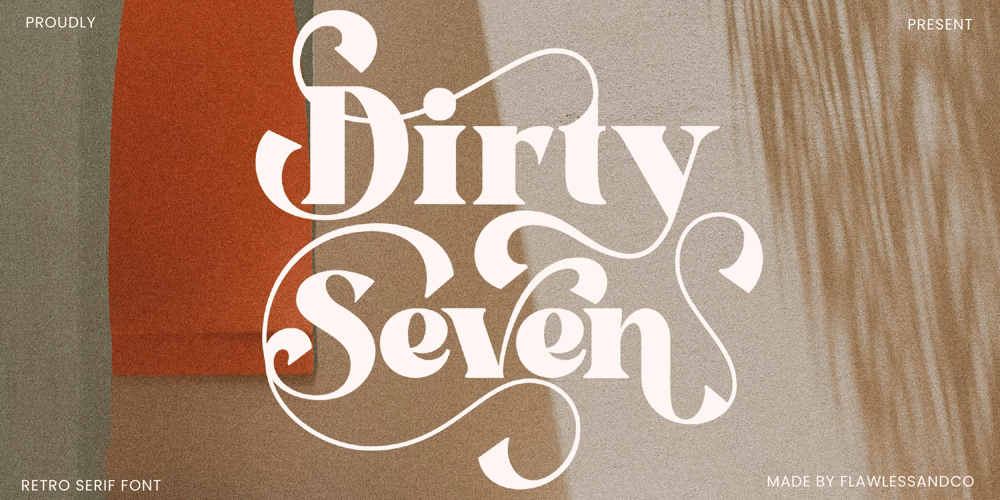
Dirty Steven Font Family was designed by Achmad Yani and published by Flawlessandco. Dirty Steven contains 1 styles and family package options. Introducing “Dirty Seven” – A Retro Serif Font. Step into the nostalgia of yesteryear with “Dirty Seven,” a retro serif font that pays homage to the timeless charm of vintage typography.There’s some connected letters and some alternates that suitable for any graphic designs such as branding materials, t-shirt, print, business cards, logo, poster, t-shirt, photography, quotes, etc.This font support for some multilingual. Also contains uppercase A-Z and lowercase a-z, alternate character, numbers 0-9, and some punctuation.If you need help, just write me! Thanks so much for checking out my shop!